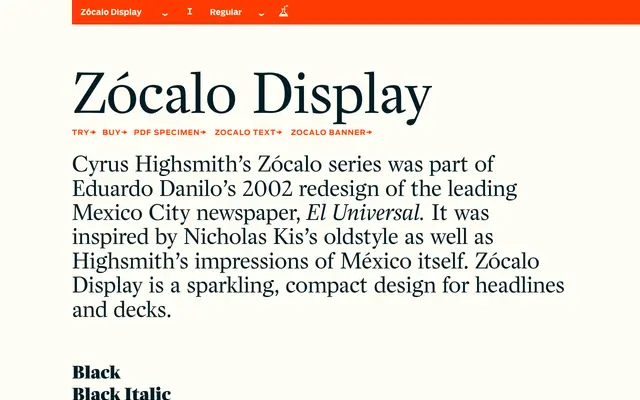
Zócalo Display
A compact oldstyle display serif by Cyrus Highsmith, originally drawn for the 2002 redesign of Mexico City newspaper El Universal.
Designed by Cyrus Highsmith and released in 2005, Zócalo Display draws on Nicholas Kis's oldstyle models filtered through Highsmith's impressions of México. It was created as part of Eduardo Danilo's editorial redesign of El Universal, one of Mexico City's leading newspapers, and is tuned for headlines and decks with a sparkling, tight character. The family spans four weights from Regular to Black, each with an italic, and sits alongside optical-size companions Zócalo Text and Zócalo Banner.
Zócalo Display is an oldstyle serif inspired by Nicholas Kis's historical models, adapted for headline use with compact proportions and high contrast suited to display sizes.